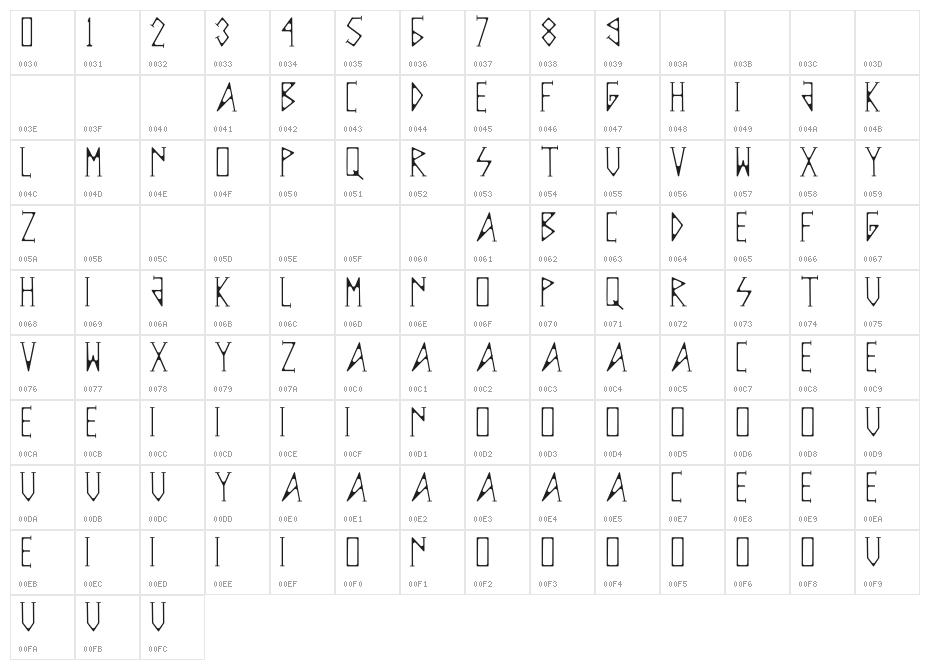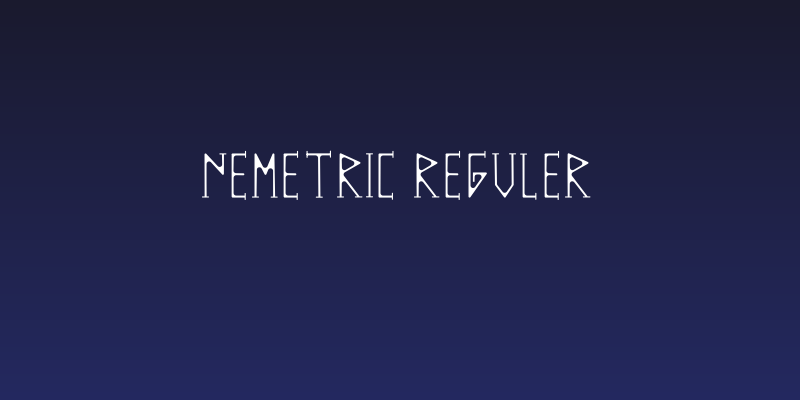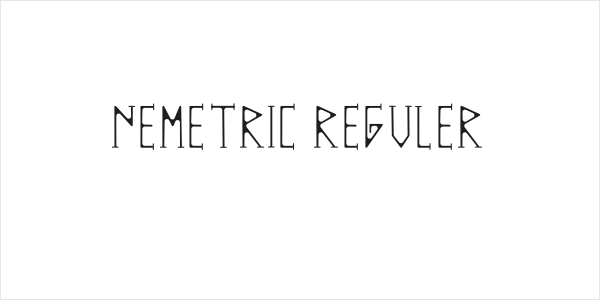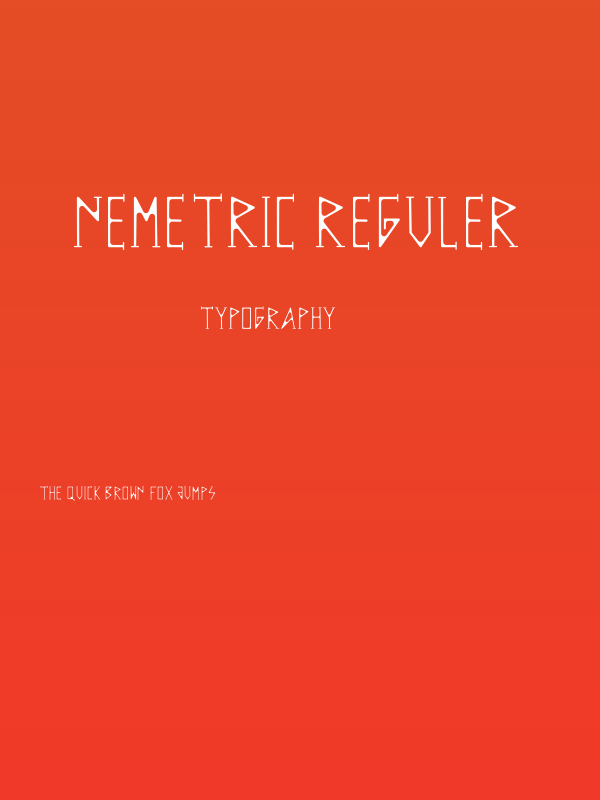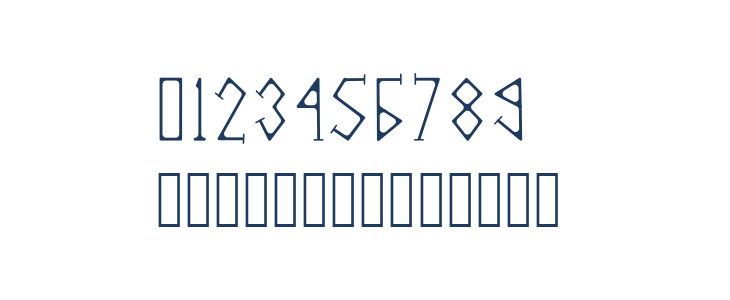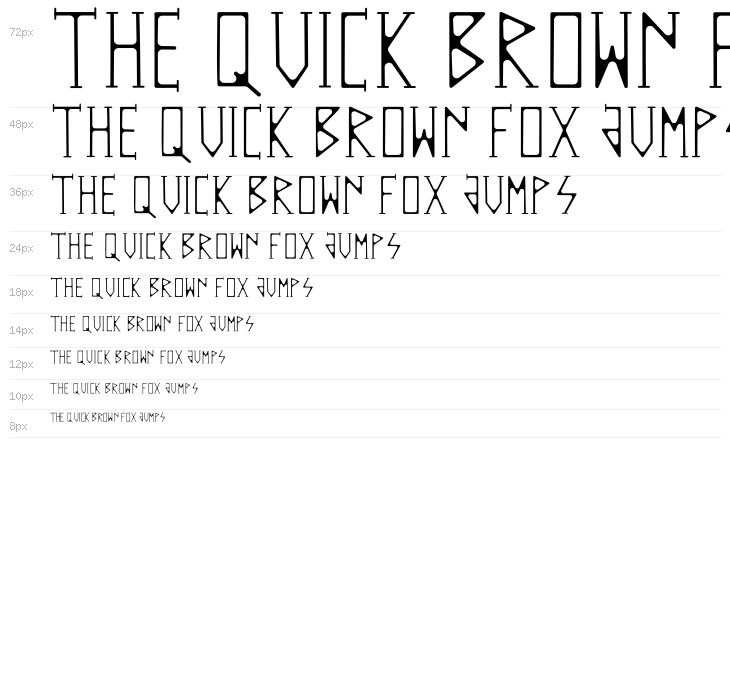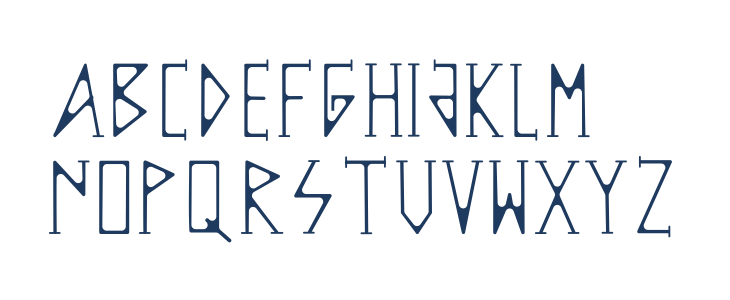
NEMETRIC REGULER Font
NEMETRIC REGULER Description
This font features a unique and striking design with angular and geometric shapes. The uppercase letters are characterized by sharp edges and a bold presence, while the lowercase letters maintain a consistent style with slightly less emphasis. The numbers follow the same angular theme, providing a cohesive look across all characters. Special characters are designed to match the overall aesthetic, making this font suitable for creative and modern projects. The font's distinct style is reminiscent of ancient or futuristic scripts, offering a blend of historical and contemporary vibes.
| Proposed Projects | Ideal for branding, posters, album covers, and any project requiring a bold, modern look. |